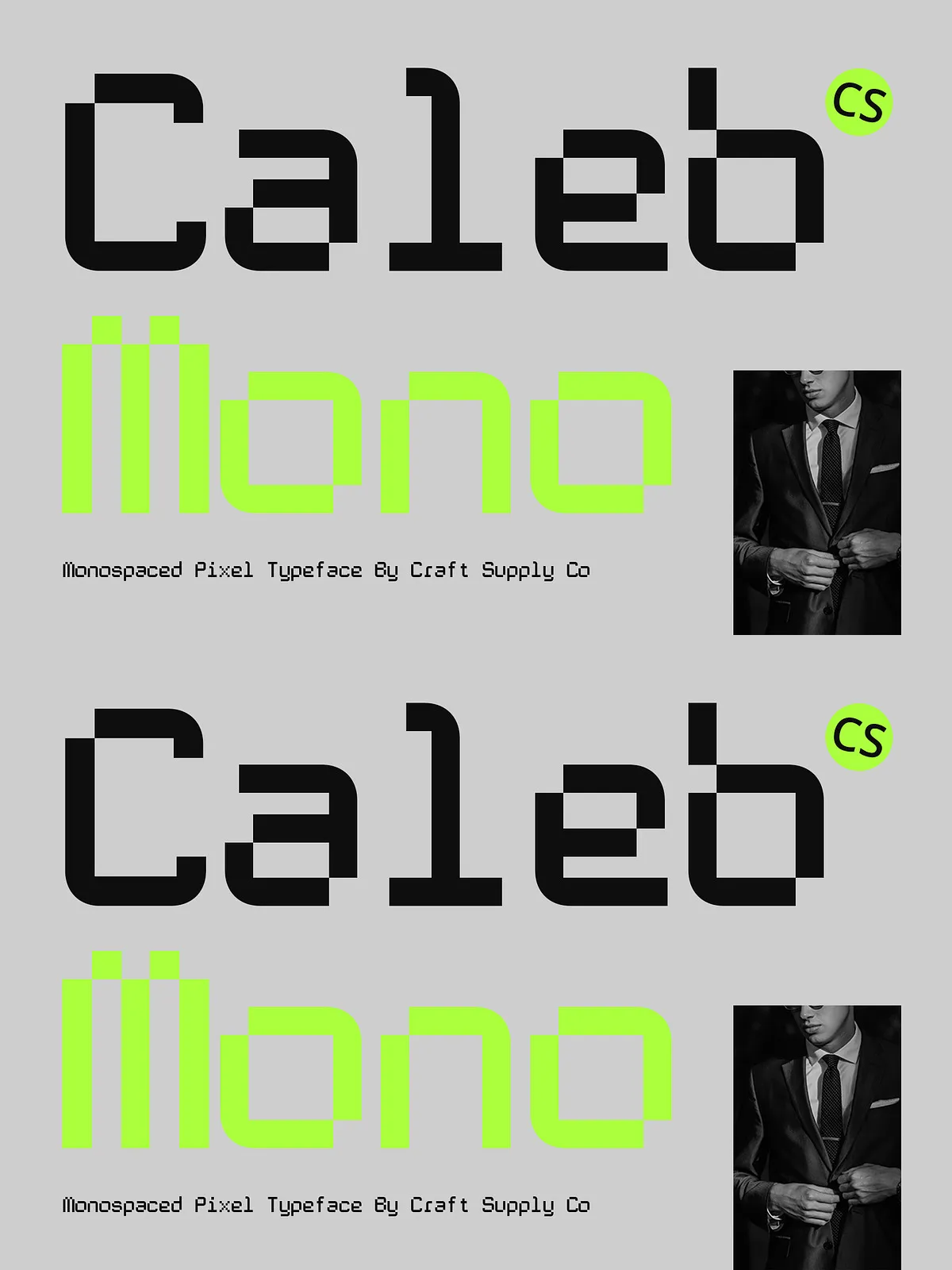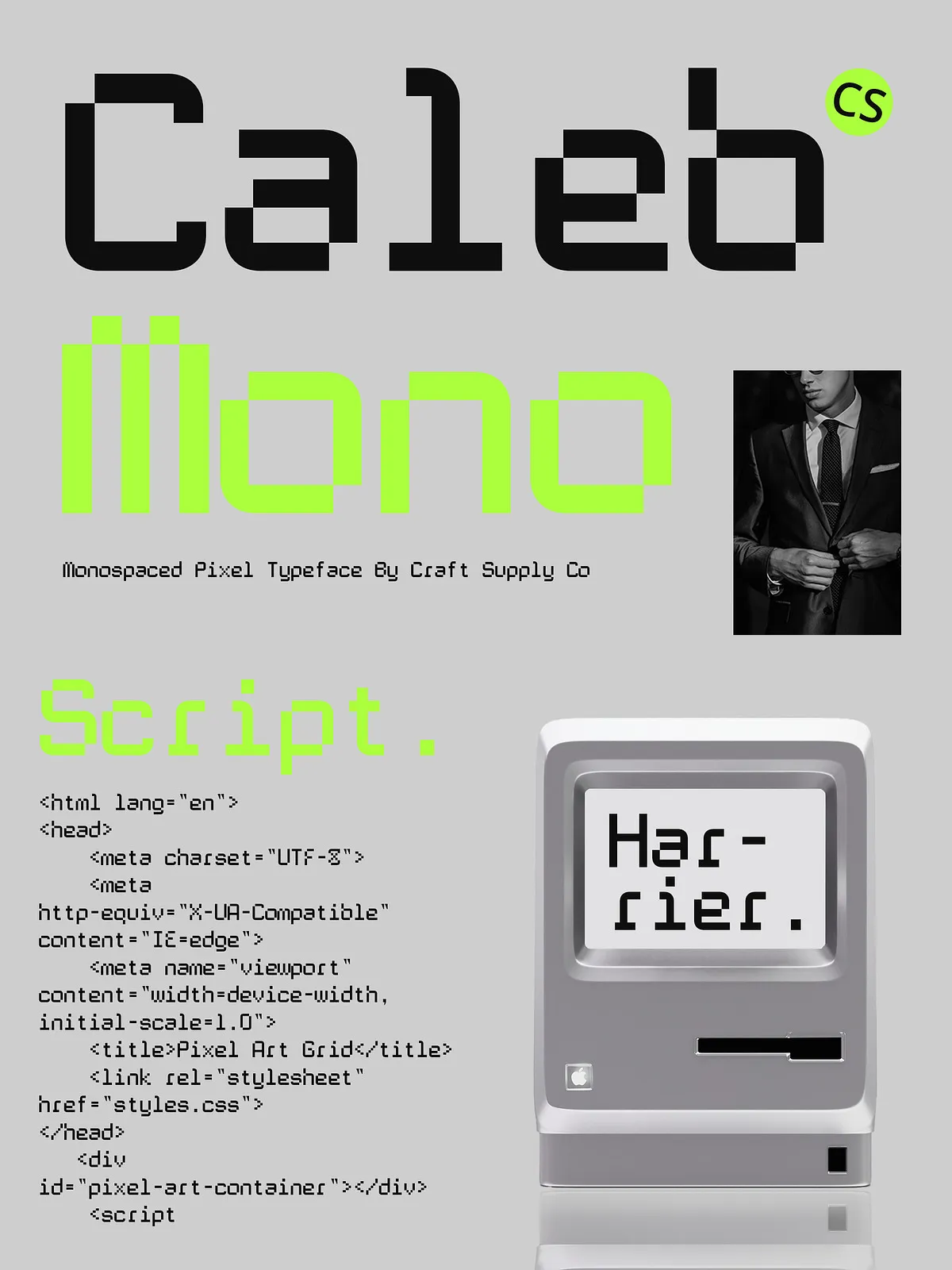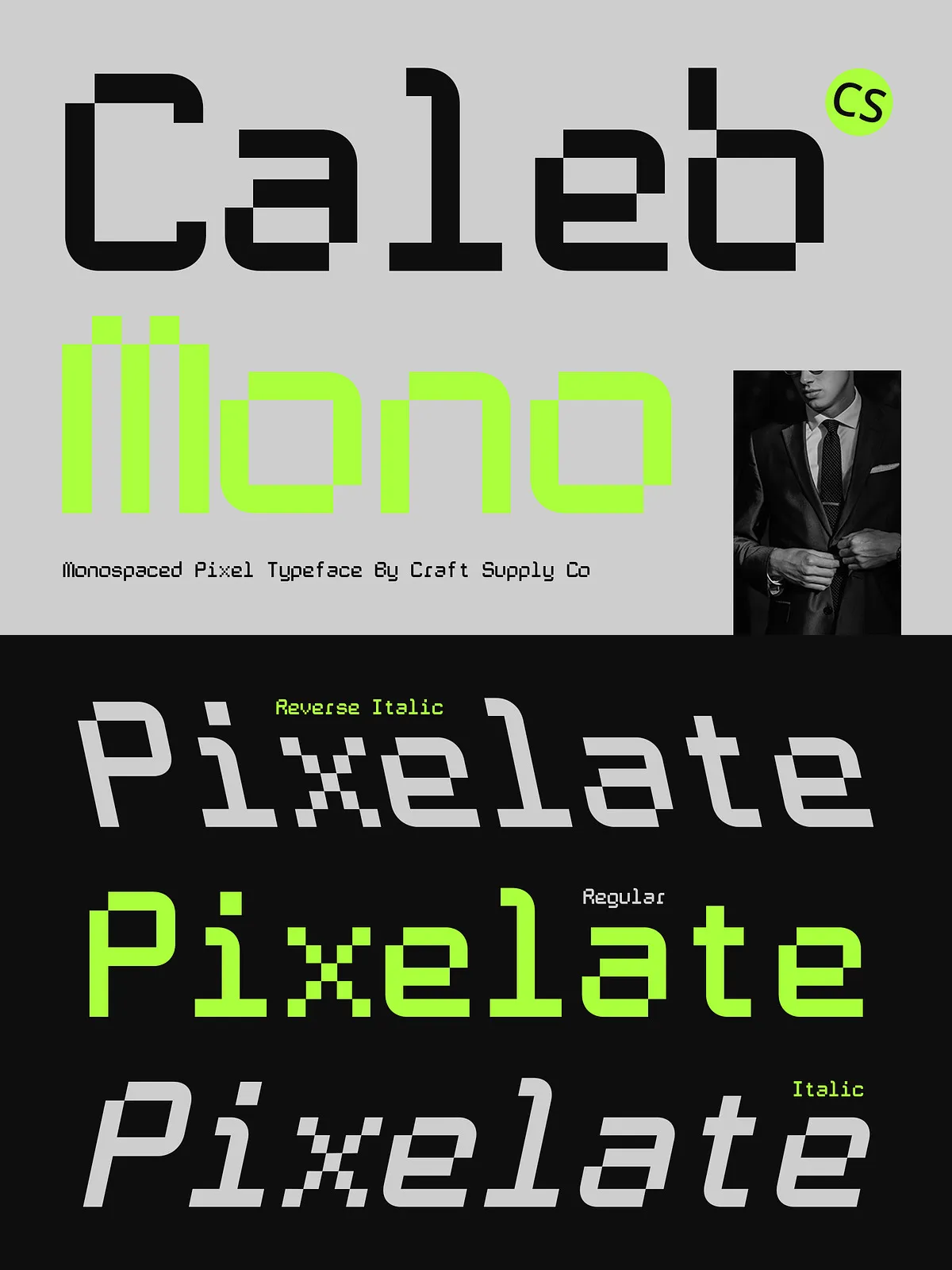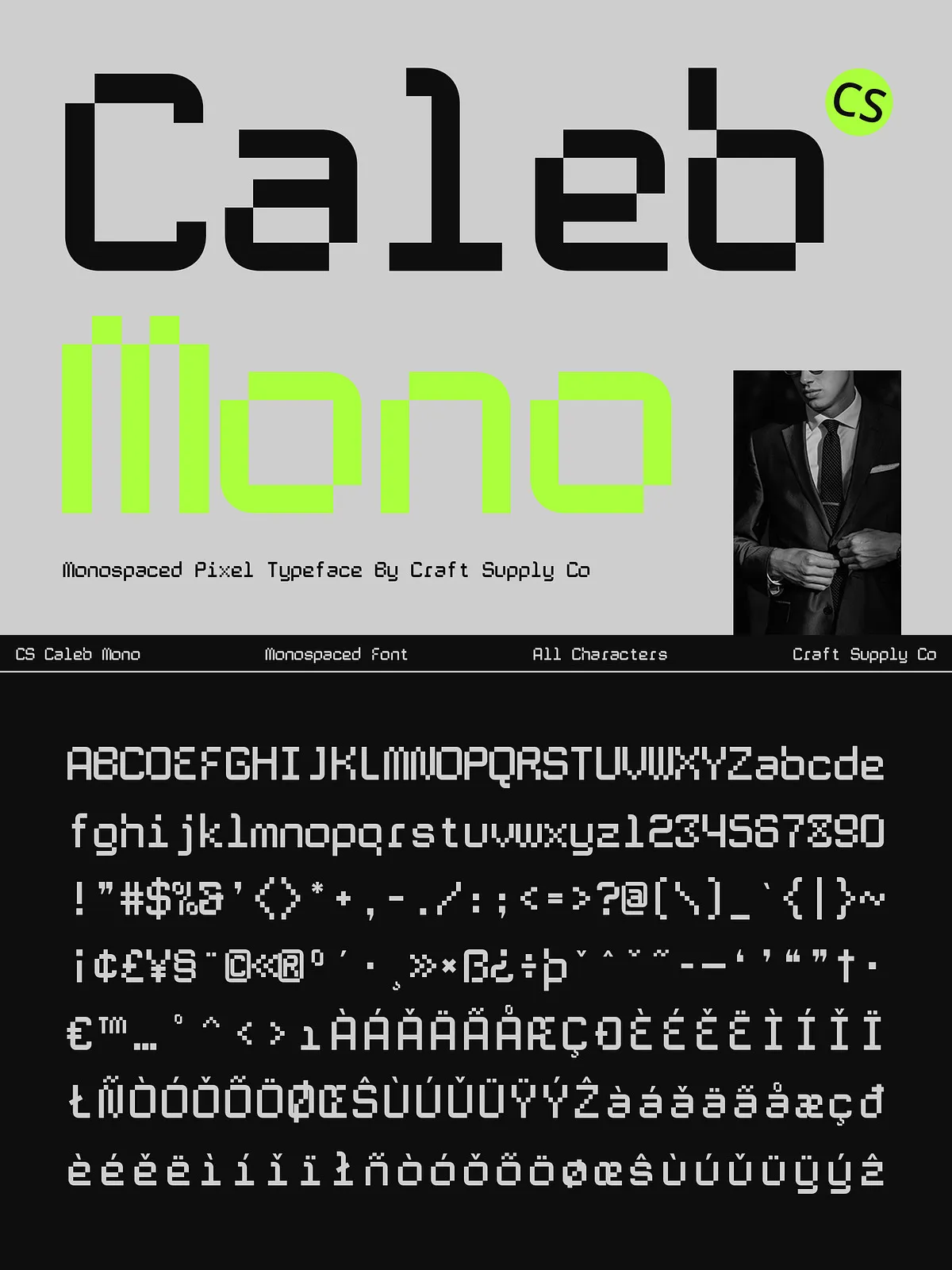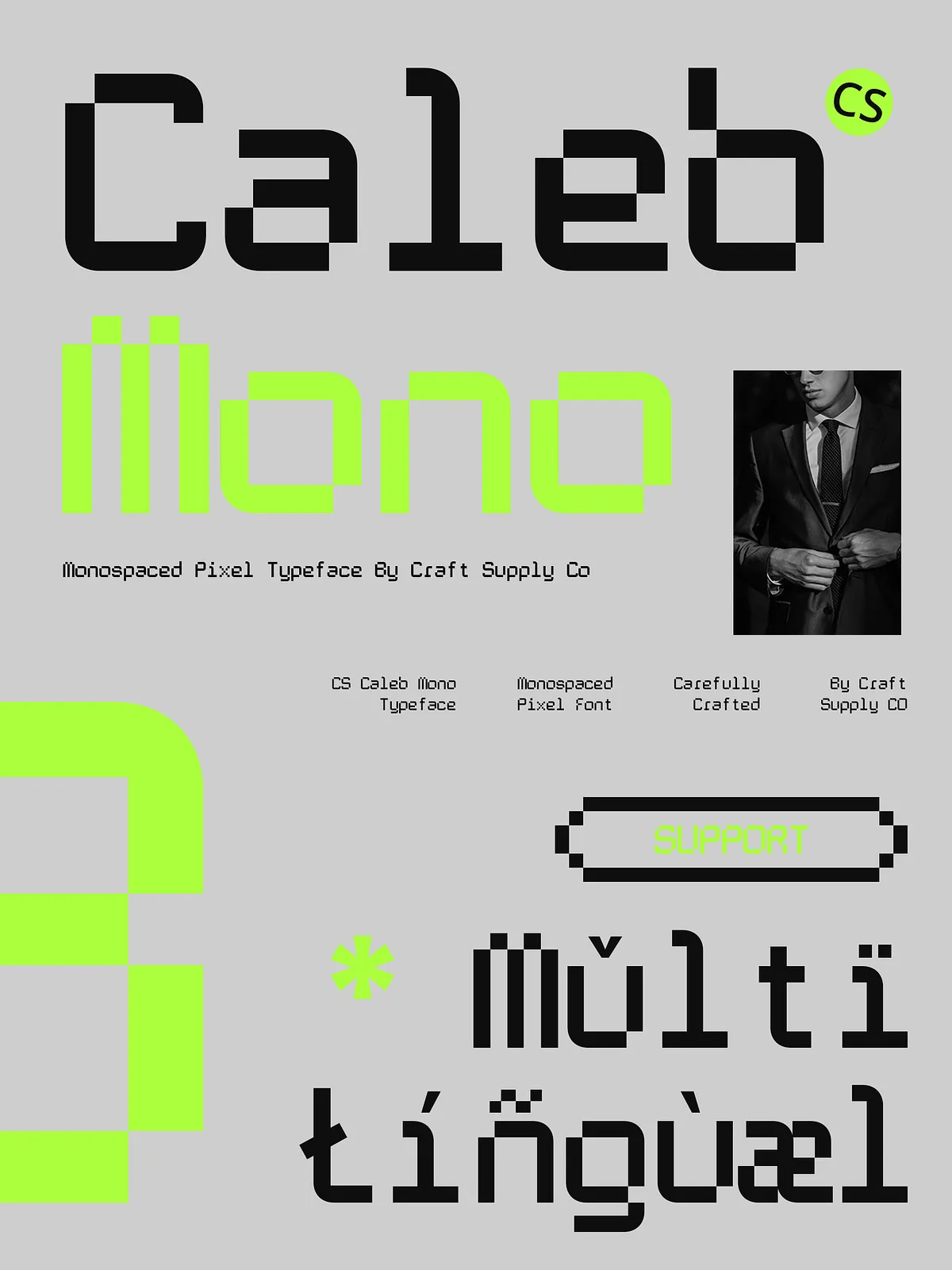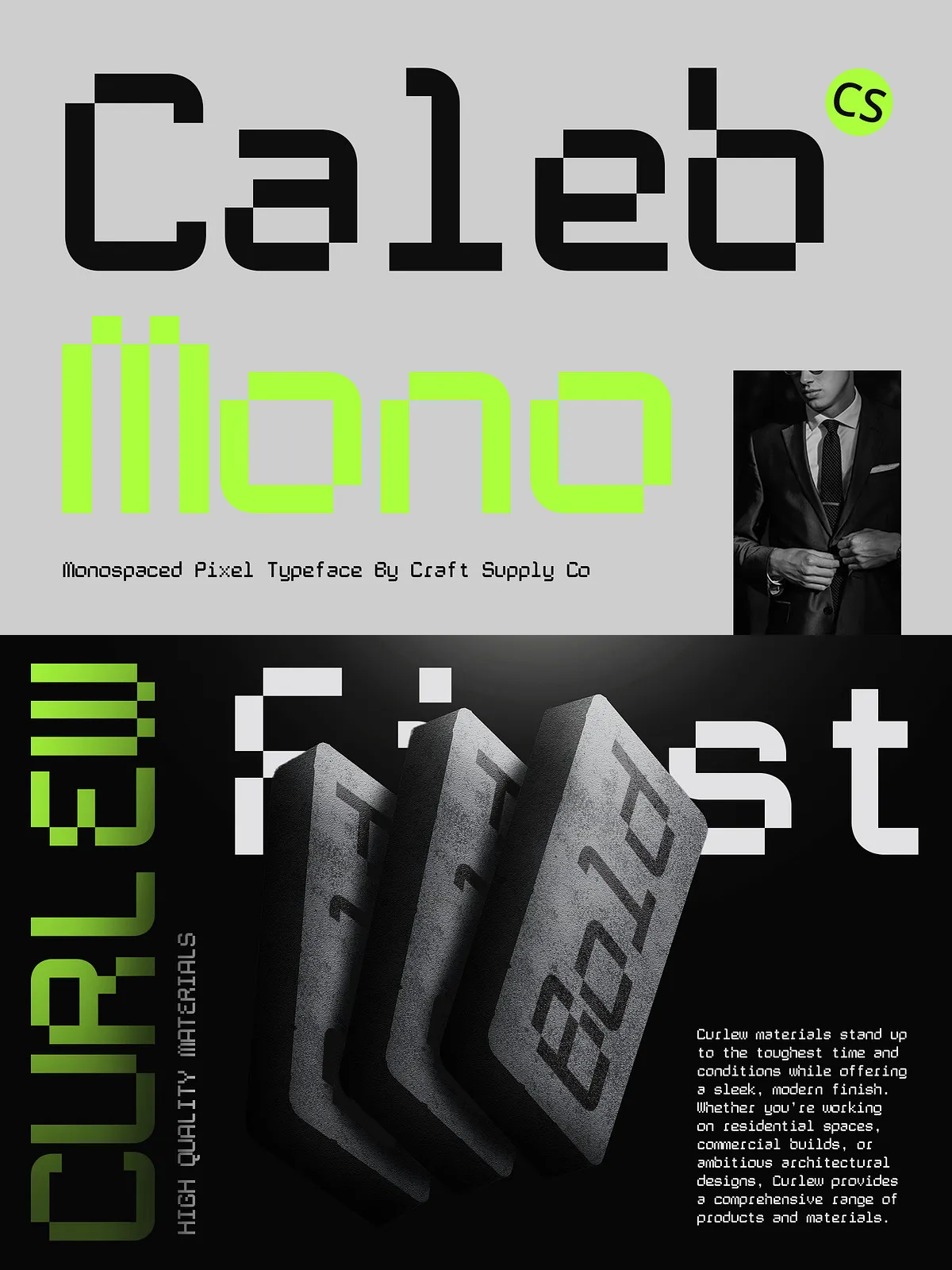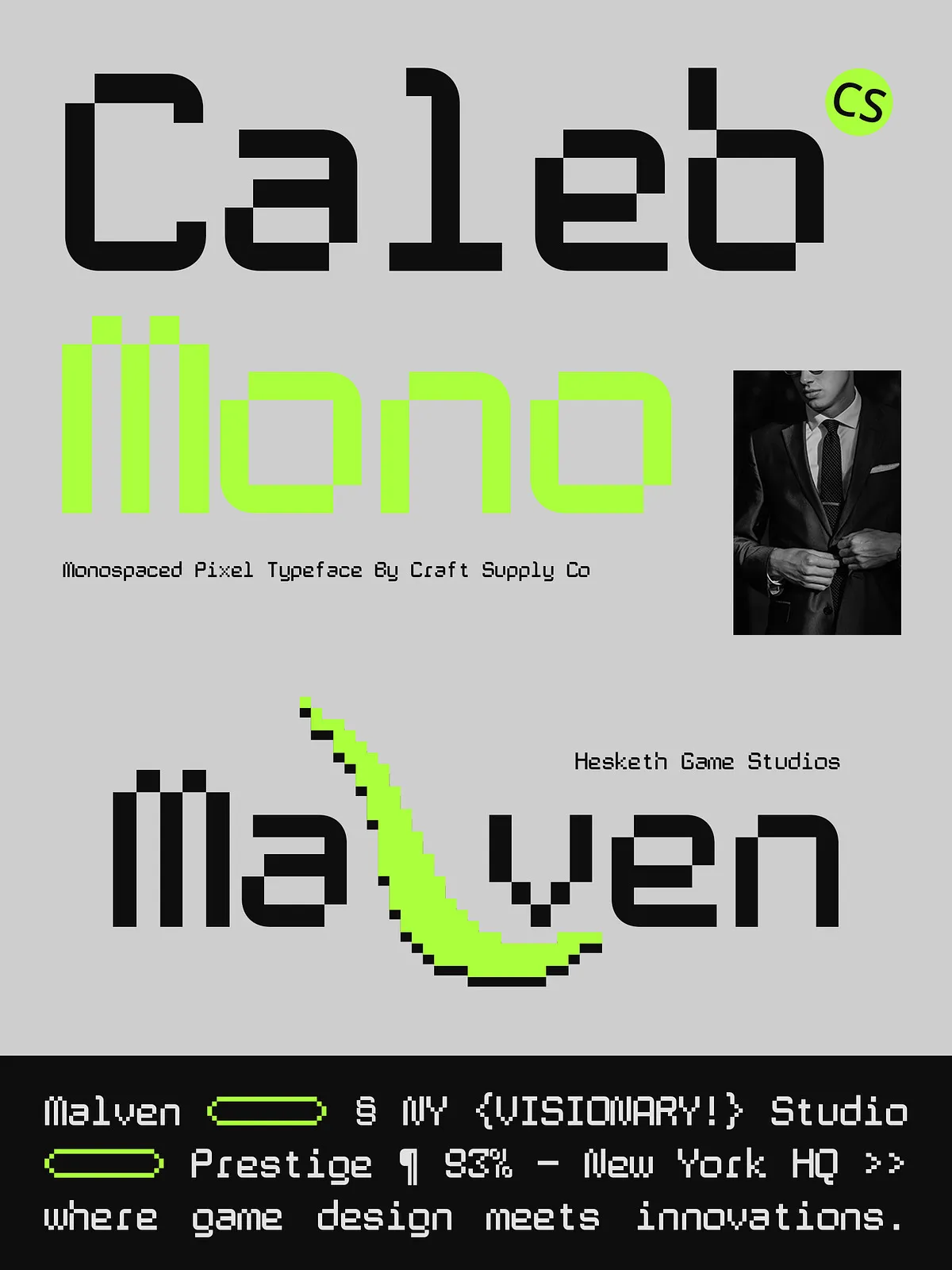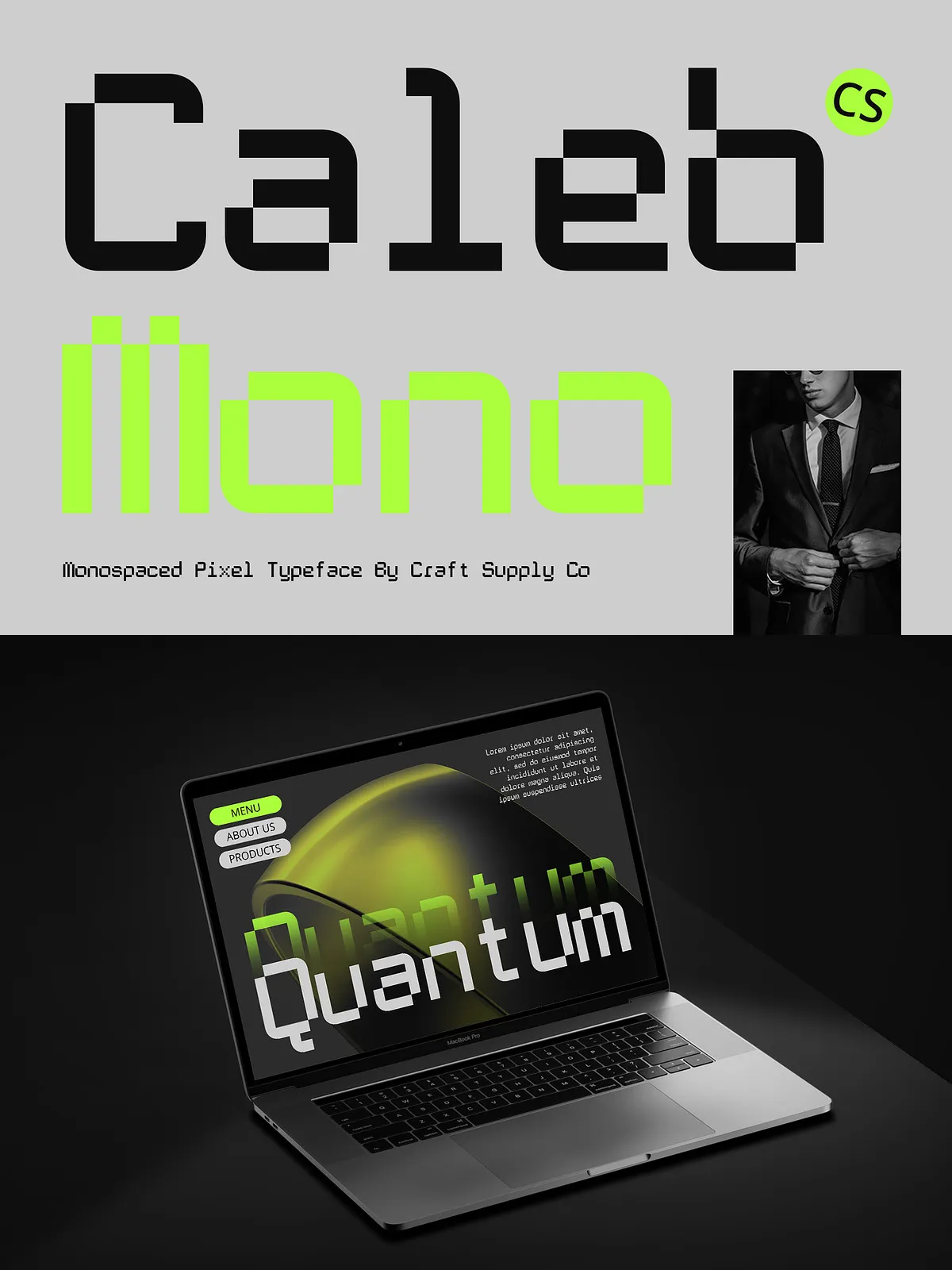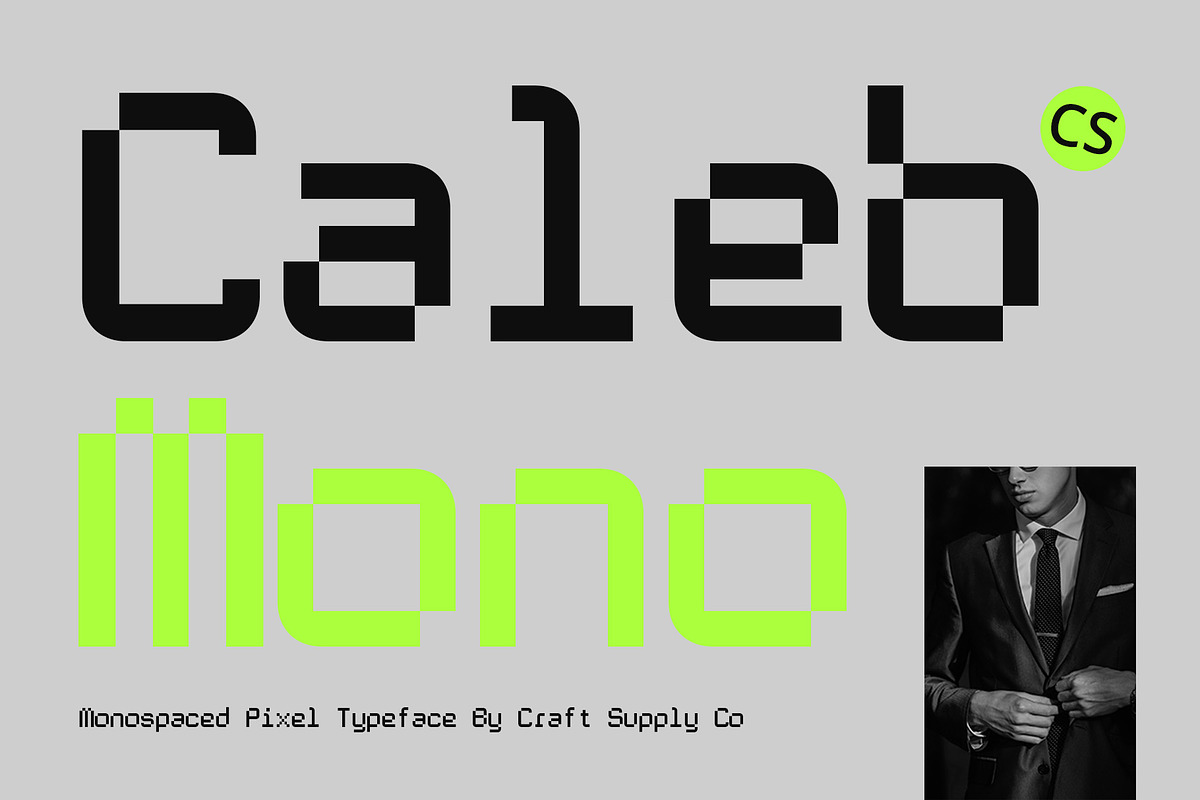
CS Caleb Mono – Monospaced Font
Step into the future by looking back. CS Caleb Mono isn’t just a font — it’s a design revolution forged in the spirit of early digital culture. Built on the rigid structure of monospaced alignment, every character occupies the same width, creating perfect symmetry and technical precision. But this is where tradition ends and innovation begins.
With its sharp, blocky pixel-inspired design, CS Caleb Mono channels the raw energy of 8-bit video games, vintage computer terminals, and early digital displays. The deliberate imperfection of each pixelated stroke adds dimension, texture, and soul — transforming text from mere communication into visual storytelling. This isn’t retro for nostalgia’s sake; it’s retro with intent. A bold statement in every letter, every line.
Designed for Impact Across Digital Arenas
From game interfaces to tech branding — where function sparks emotion
CS Caleb Mono thrives where clarity and character collide:
• Game UI & HUD Design: Build immersive interfaces for retro-style, cyberpunk, or indie games. The pixel clarity ensures readability even at small sizes, while the nostalgic aesthetic instantly establishes theme and tone.
• Tech Branding & Digital Identity: Stand out in the competitive tech space with a typeface that says, “We’re forward-thinking, but we remember where we came from.” Ideal for startups, developer tools, and app logos.
• Experimental Typography & Motion Graphics: Use its striking visual rhythm to drive dynamic animations, kinetic text, or title sequences that pop on screen.
• Printed Media & Zines: Add a tactile layer of digital nostalgia to zines, magazine covers, or packaging for music, gaming, or digital culture products.
• Code & Terminal Aesthetics: Use it in visual code representations, developer portfolios, or documentation with a retro flair — where functionality and theme are one.
Whether you’re building a game world, launching a product, or crafting a visual narrative, CS Caleb Mono gives your work a unique identity — confident, bold, and unmistakably digital.
Powerful Styles, Complete Creative Freedom
Three dynamic variations to elevate every design layer
CS Caleb Mono isn’t just a single font — it’s a trio of expressive styles, each crafted to serve different design needs:
• CS Caleb Mono Regular: The clean, foundational style. Ideal for headlines, titles, and primary branding elements where crispness and balance are key.
• CS Caleb Mono Italic: Adds motion and flair. Perfect for quotes, accents, or creative pull quotes that need to break the grid without losing legibility.
• CS Caleb Mono Reverse Italic: A modern twist — inverted stroke density and asymmetric forms. Use this for high-contrast overlays, glitch art, or visual accents that demand attention.
Together, the three styles unlock narrative depth. Use them like colors in a palette: Regular for stability, Italic for energy, Reverse Italic for surprise.
Feature-Rich for Designers, Developers, and Creators
Comprehensive OpenType support, multilingual readiness, seamless integration
Engineered for professionals, CS Caleb Mono delivers robust performance across platforms:
• Full Uppercase & Lowercase Support: Seamless transitions between case for headings, slogans, and data displays.
• OpenType Features Included: Standard ligatures, case-sensitive forms, swash variants (where applicable), and stylistic sets for custom control.
• Multilingual Coverage: Supports Latin, Western European, and extended character sets with full accent support — perfect for international projects.
• PUA Encoding: Ensures access to special glyphs, symbols, and alternate characters without layout disruptions.
Claim Your Unique Voice in the Digital Ecosystem
Stop blending in. Start expressing.
There’s no shortage of generic, faceless fonts. What you need is character. CS Caleb Mono gives you that — a font that doesn’t just fit your project, but defines it.